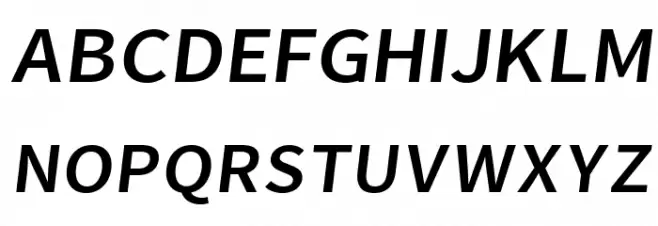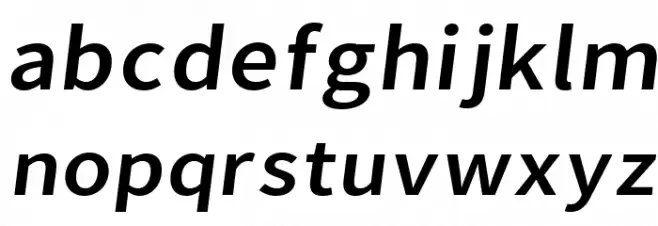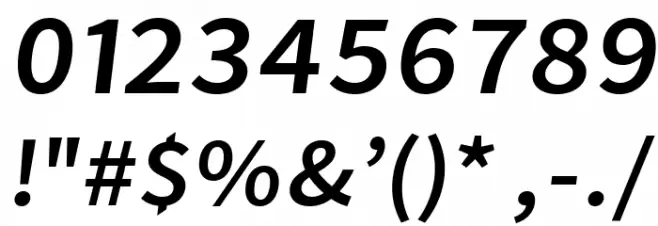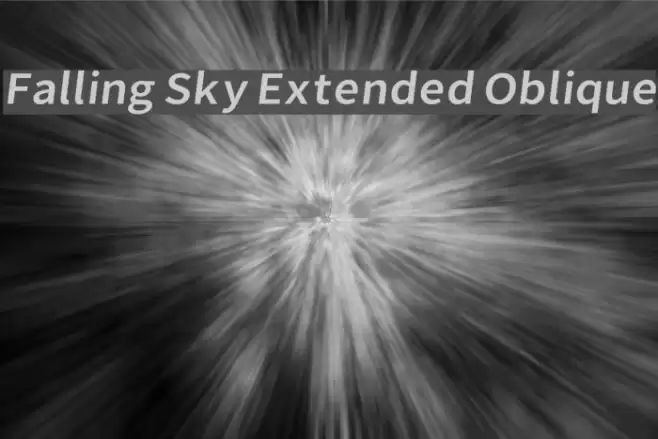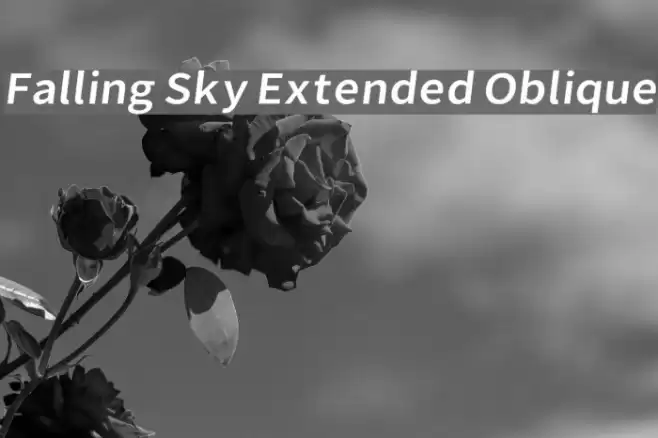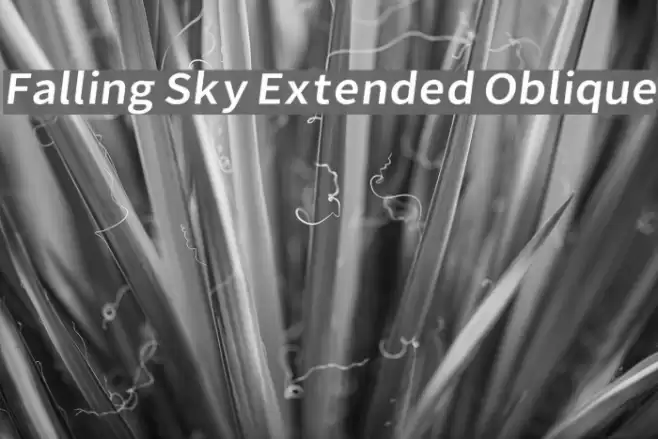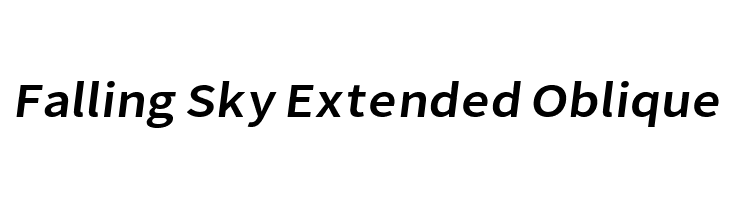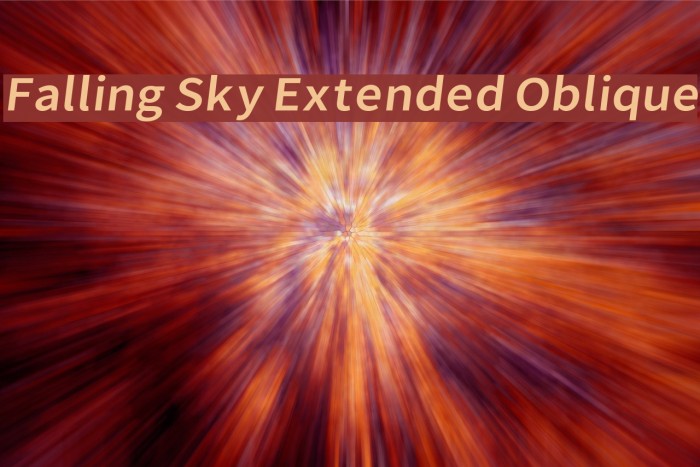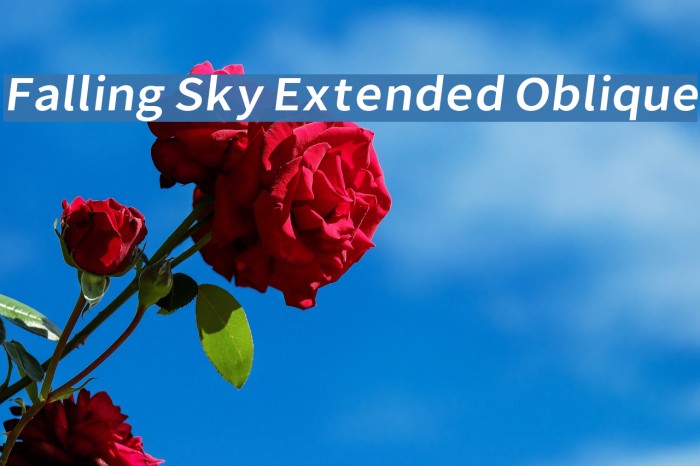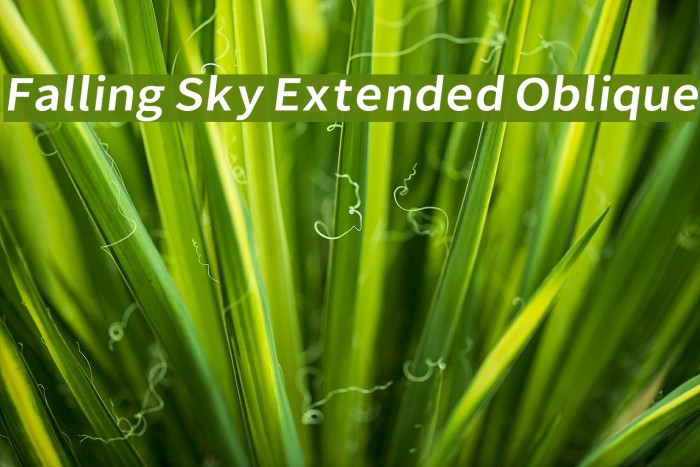
Falling Sky Extended Oblique
This font features a modern and sleek design with an oblique orientation, giving it a dynamic and forward-leaning appearance. The characters are extended, providing a sense of spaciousness and elegance. The sans-serif style ensures clean lines and a contemporary feel, making it versatile for various design applications. The stroke contrast is low, maintaining uniform thickness throughout each character, which enhances readability. The font's overall style is modern and professional, suitable for both digital and print media.
A modern, oblique sans-serif font with extended characters and low contrast.
- Proposed Projects: Ideal for branding, advertising, and editorial design projects where a contemporary and dynamic look is desired.
- Width: Expanded